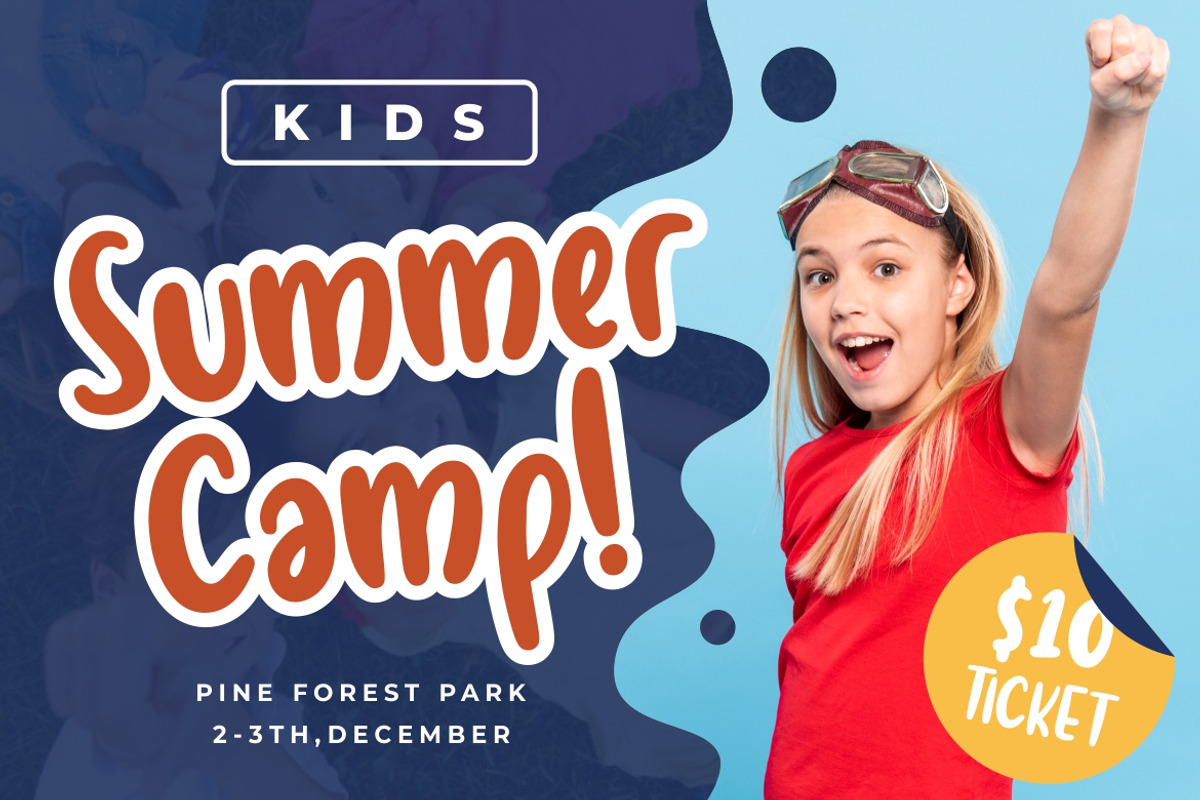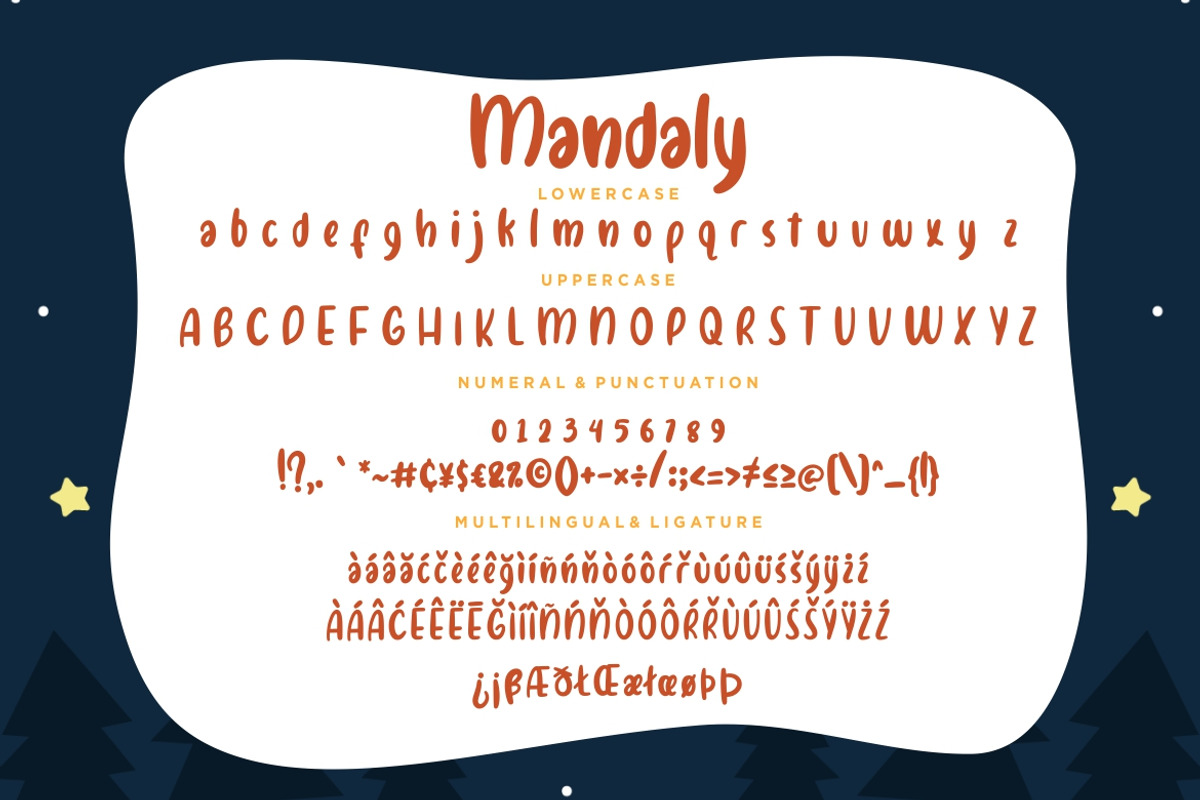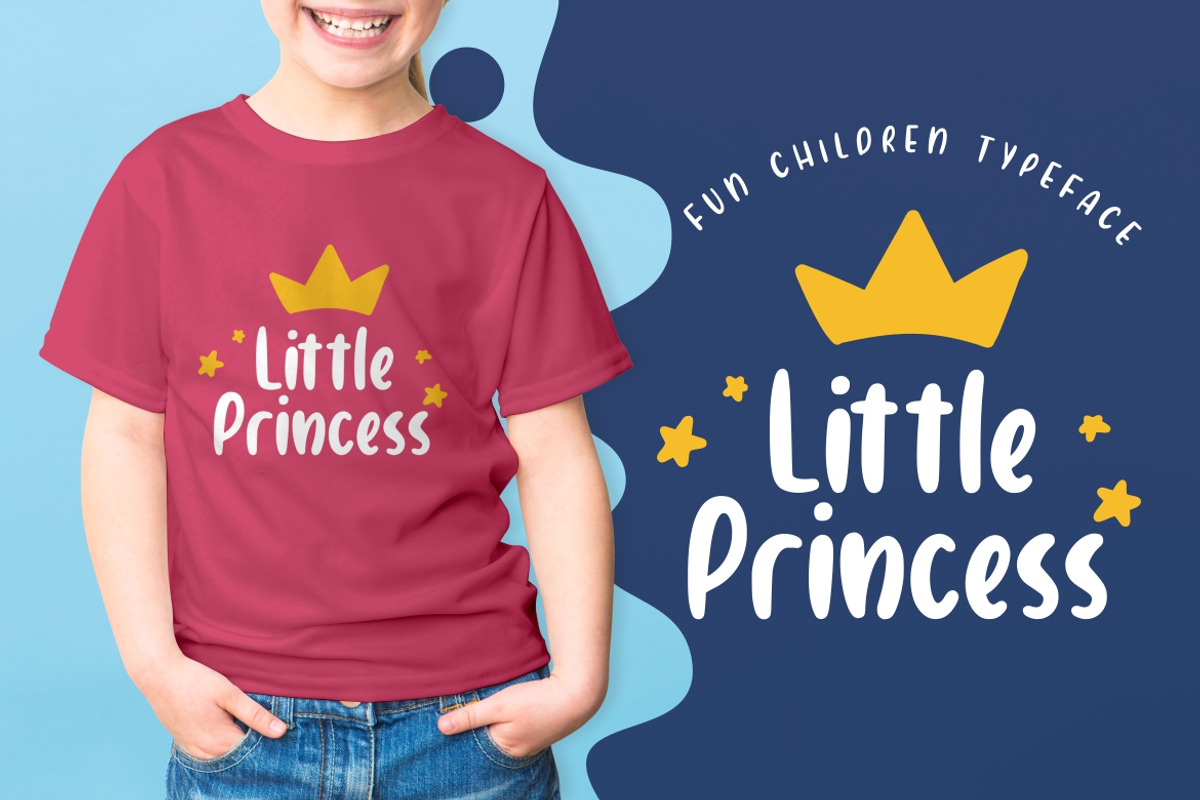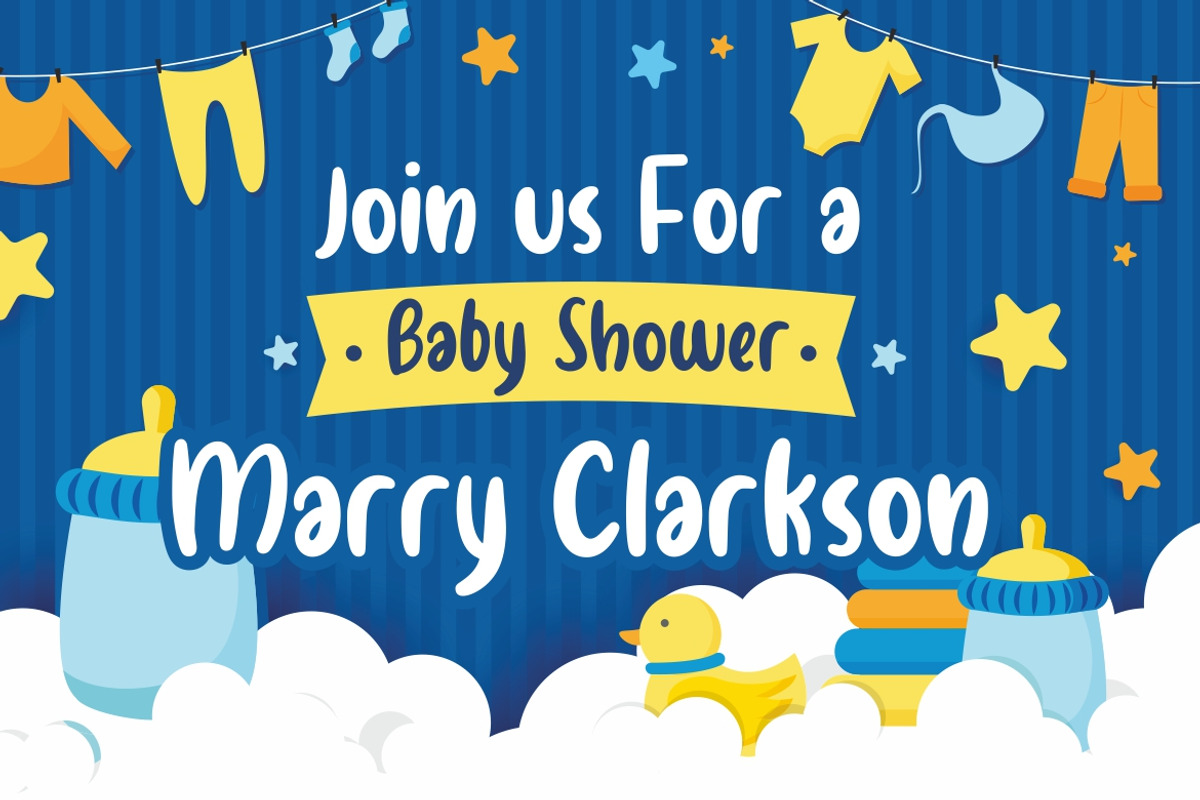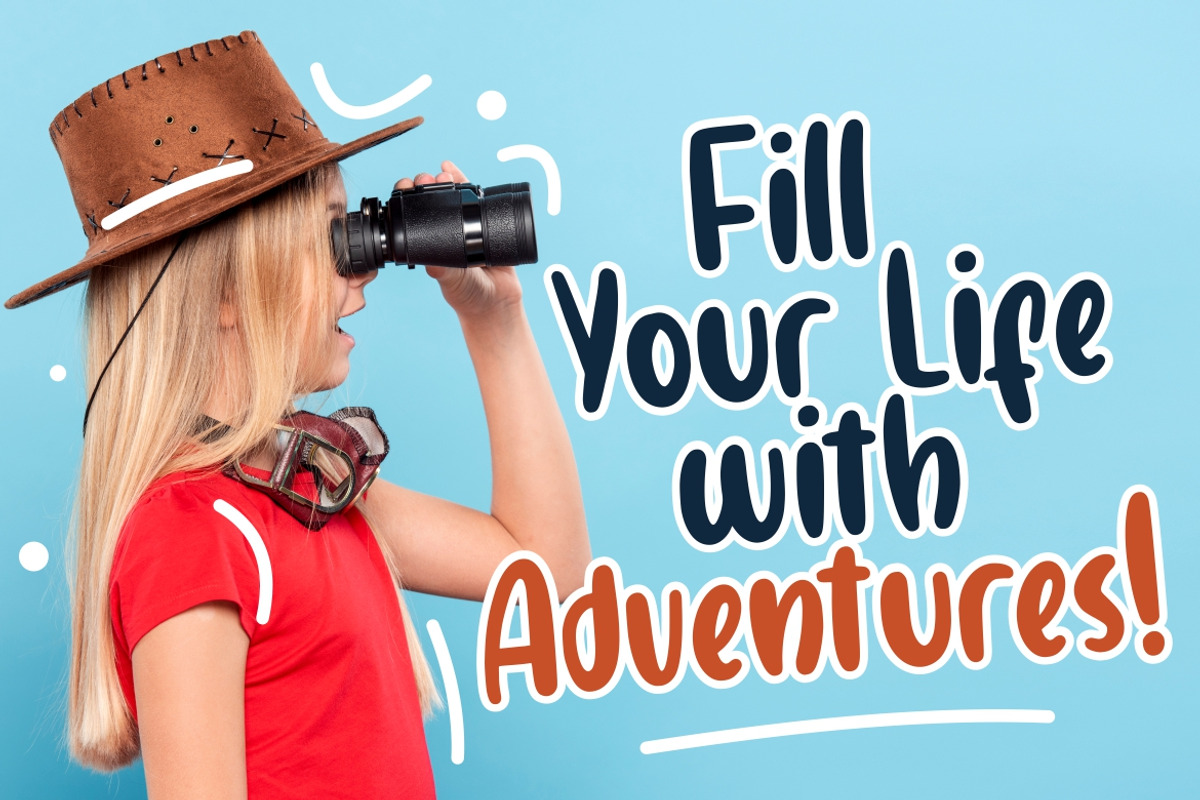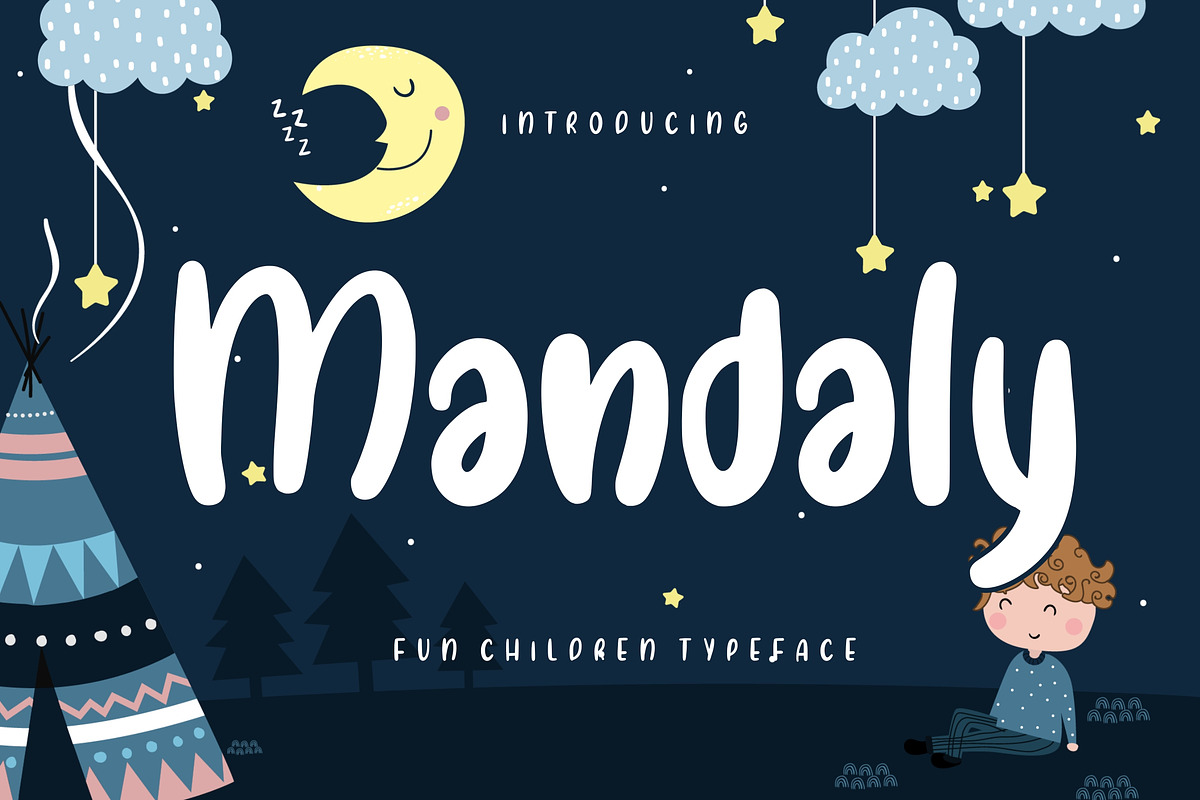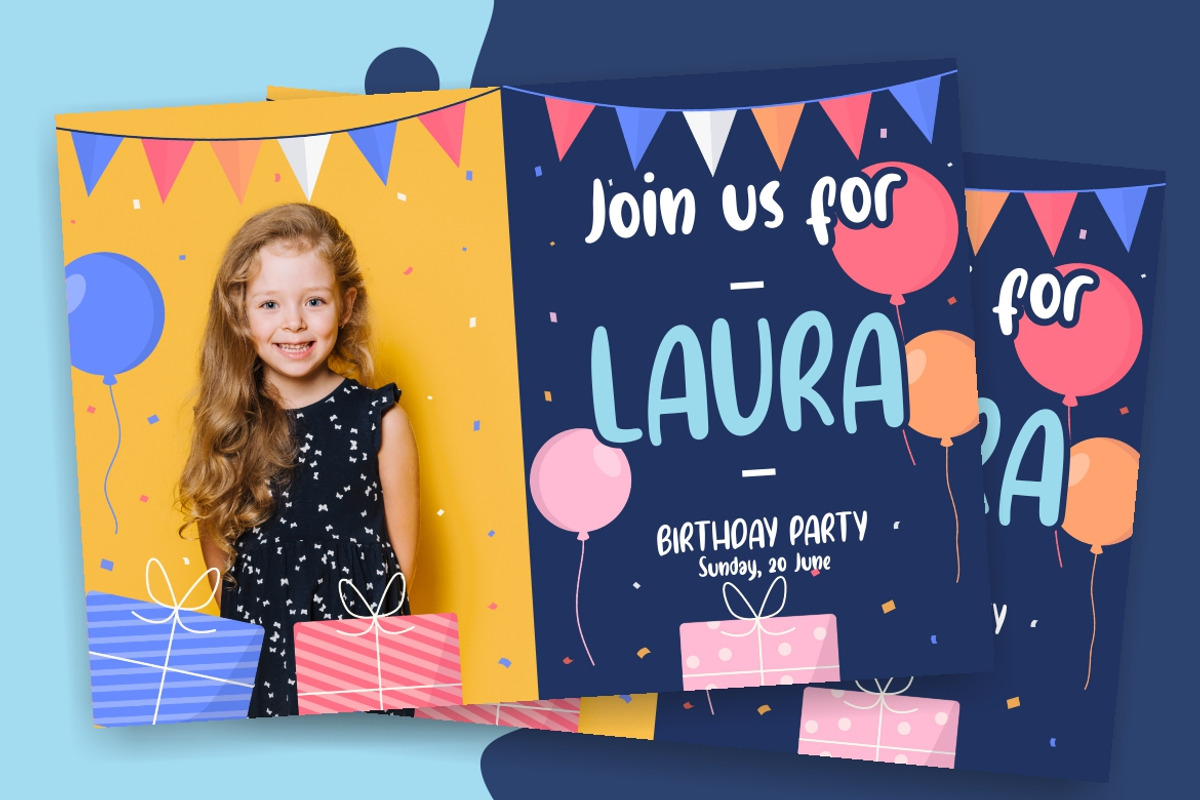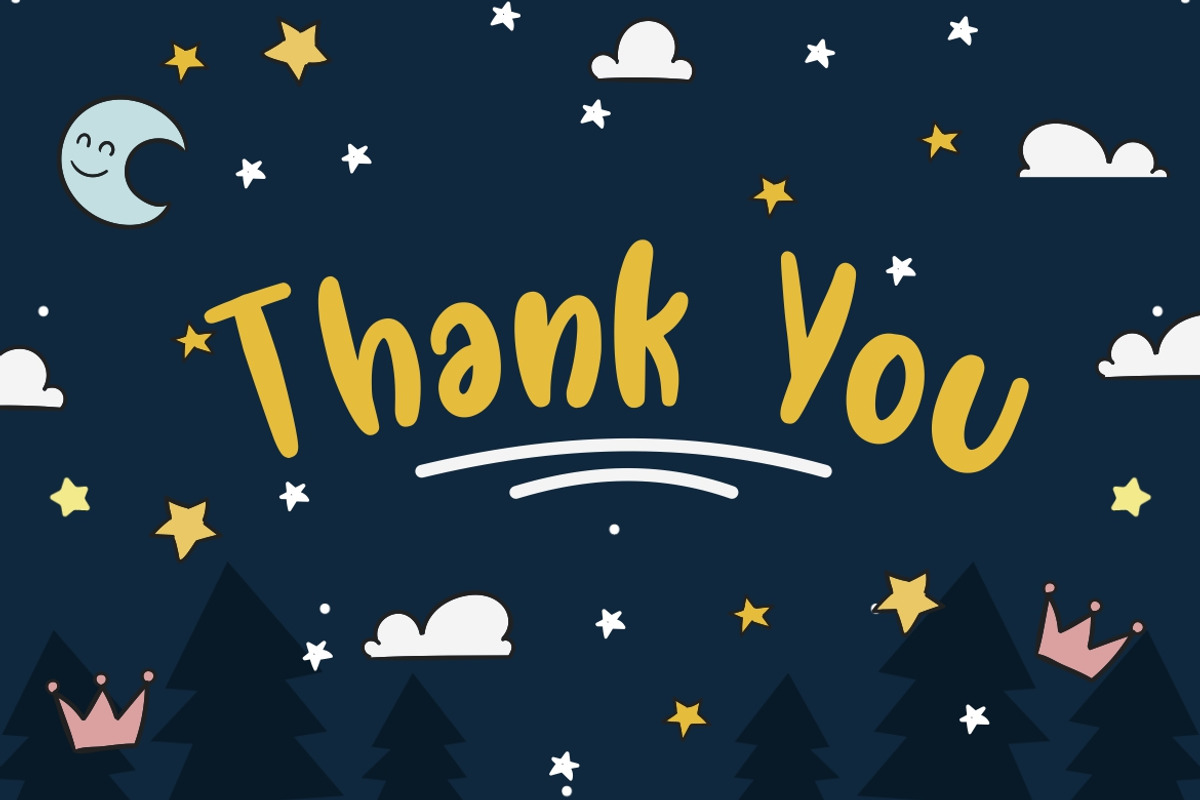
Mandaly Fun Business Font
Mandaly is playful display font which suitable to use for children related occasion.
Mandaly is perfect for branding projects, logo, wedding designs, social media posts, advertisements, product packaging, product designs, label, photography, watermark, invitation, stationery and any projects that need handwriting taste.
Mandaly Fun Business Font by Creatype Studio fits naturally into Branding, posters, packaging, typography.